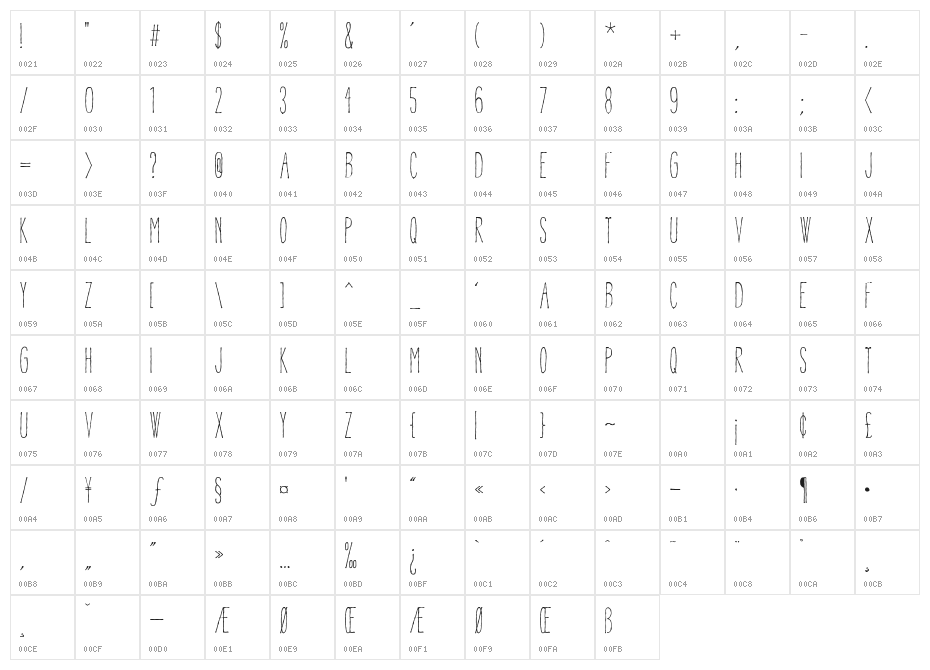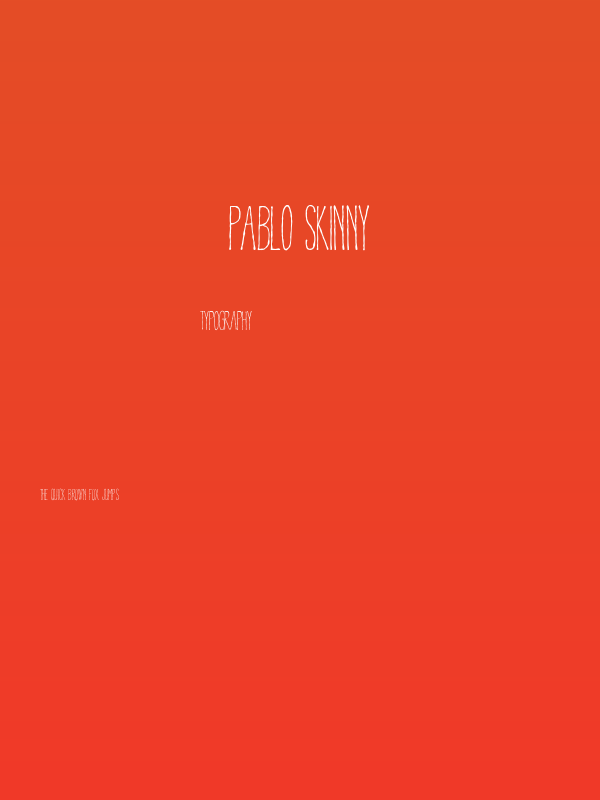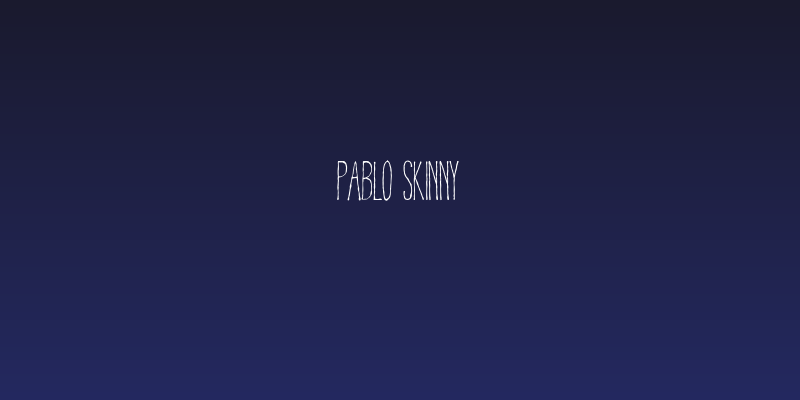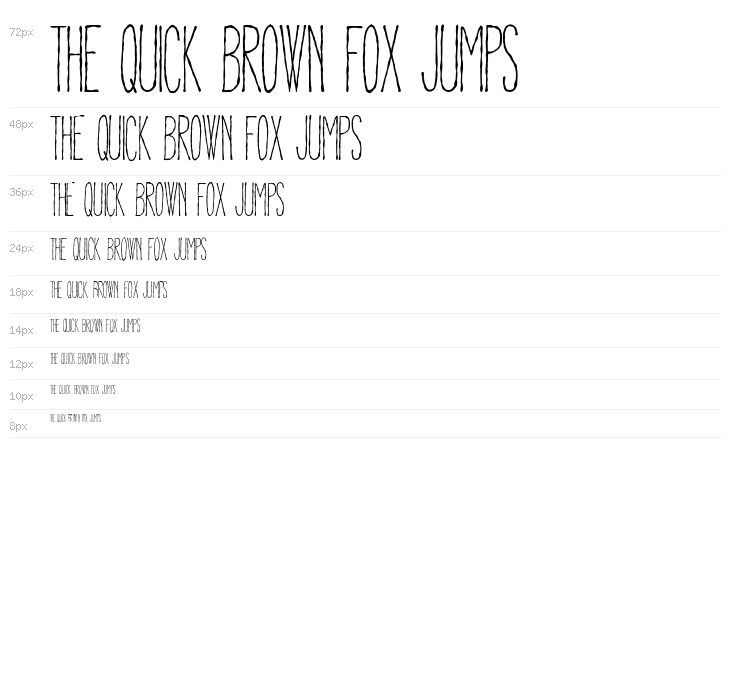
Pablo Skinny Font
Pablo Skinny Description
This font features a tall, narrow design with a hand-drawn aesthetic, giving it a unique and artistic appearance. The characters are elongated and slightly irregular, adding a whimsical touch to the overall style. The strokes are thin and consistent, contributing to a delicate and airy feel. The font maintains a playful yet sophisticated look, making it suitable for creative projects that require a distinctive and eye-catching typeface. Its quirky charm is evident in both uppercase and lowercase letters, as well as in the numerals and special characters, which all share the same slender and slightly uneven characteristics.
Proposed ProjectsIdeal for artistic posters, creative branding, unique invitations, and playful packaging designs.